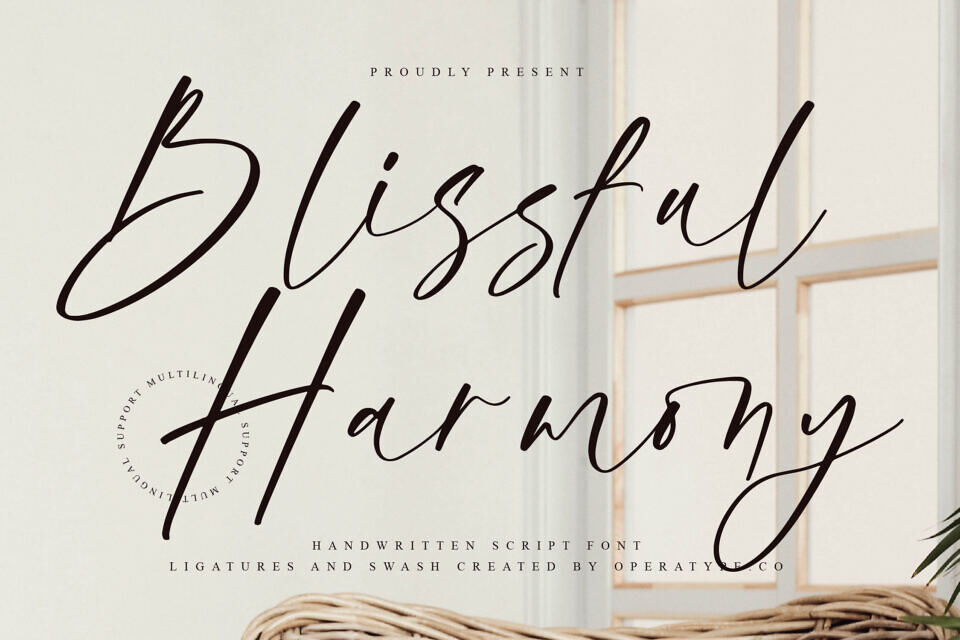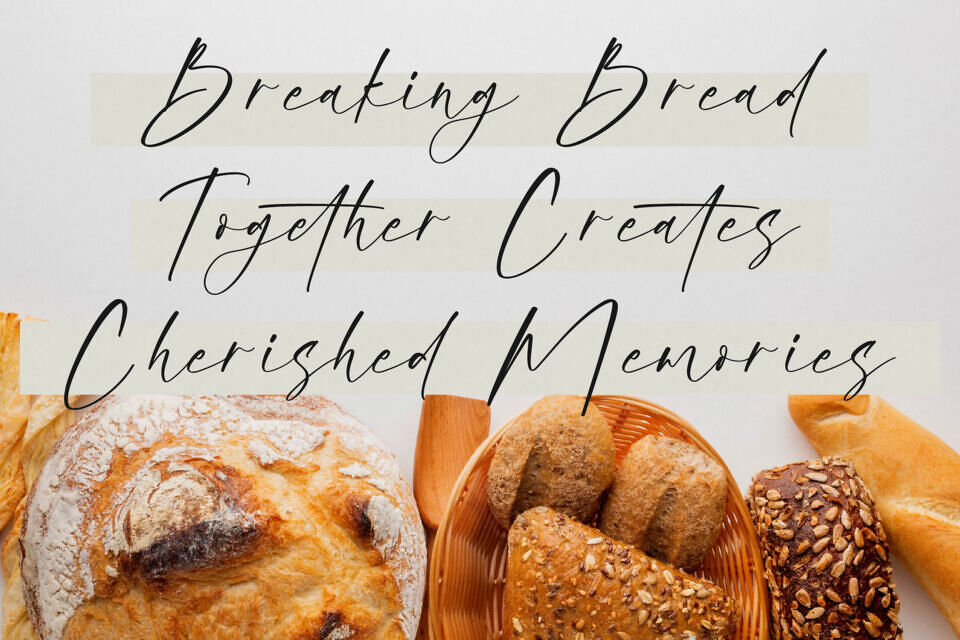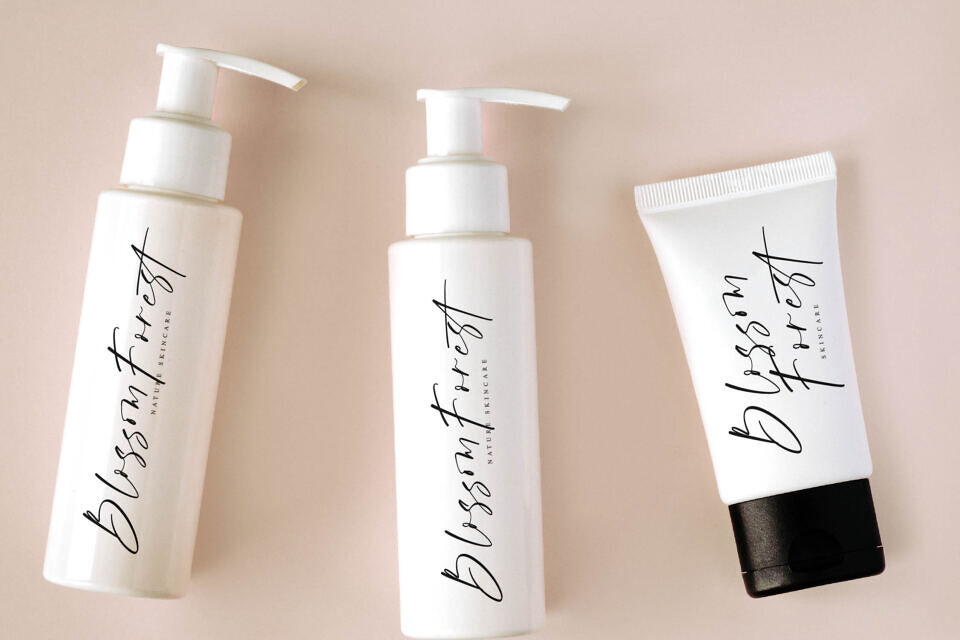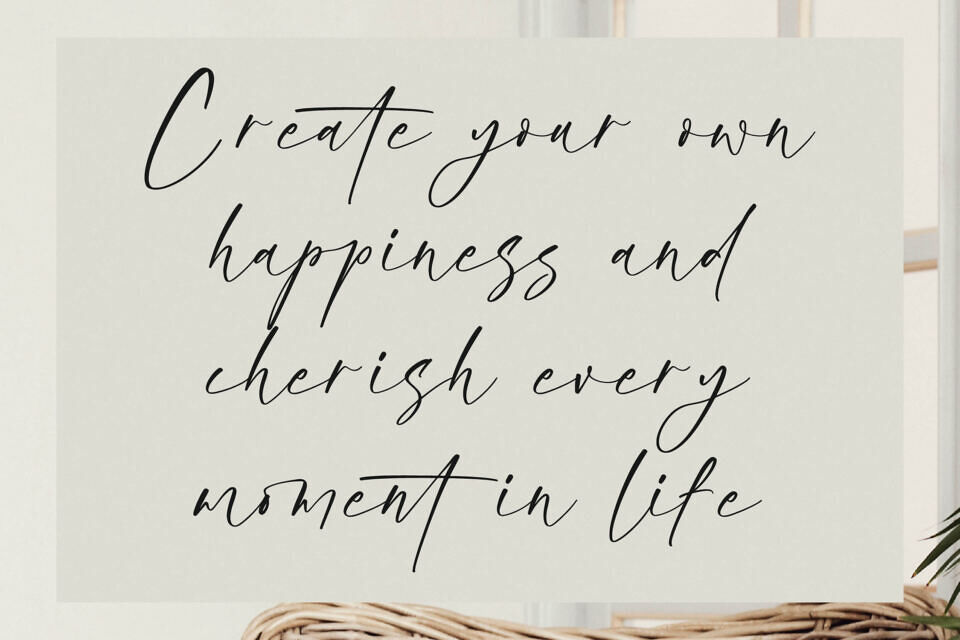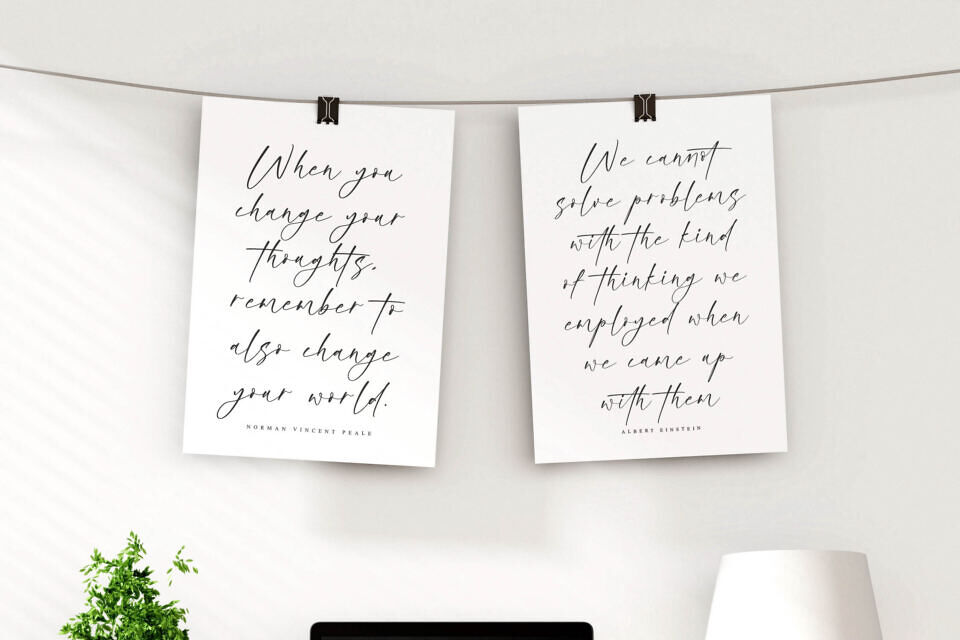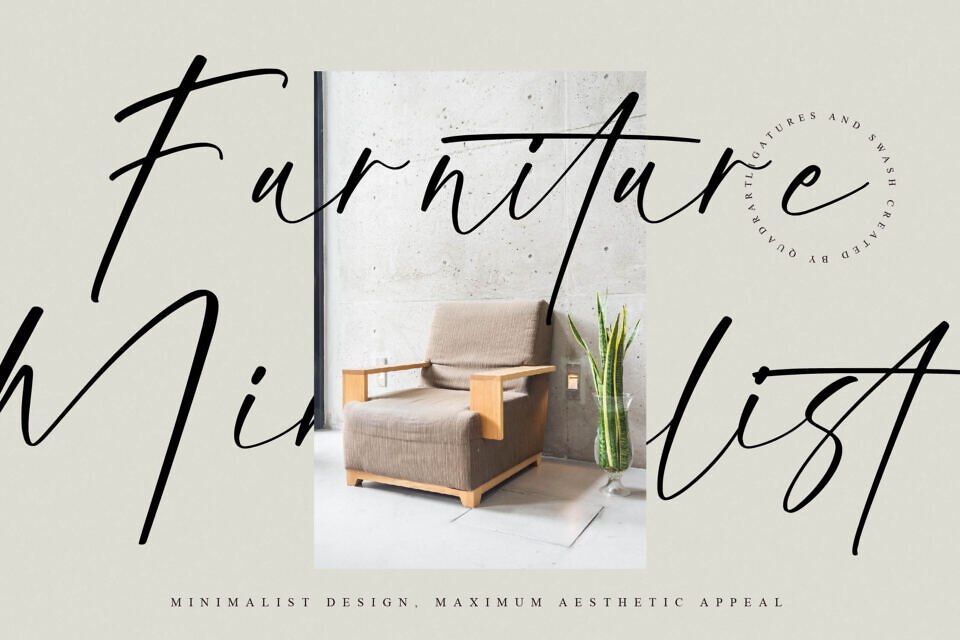
Blissful Harmony Font
This elegant script font exudes simplicity and sophistication. Its smooth strokes and refined curves create a personal touch for designs. Inspired by modern calligraphy, it blends natural movement with refined typography, resulting in a timeless and visually stunning style. With stylish ligatures and swashes, it’s perfect for luxury branding, weddings, and more, adding warmth and sophistication to every composition.